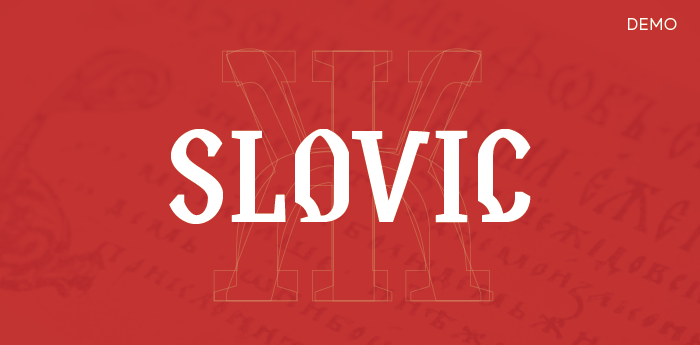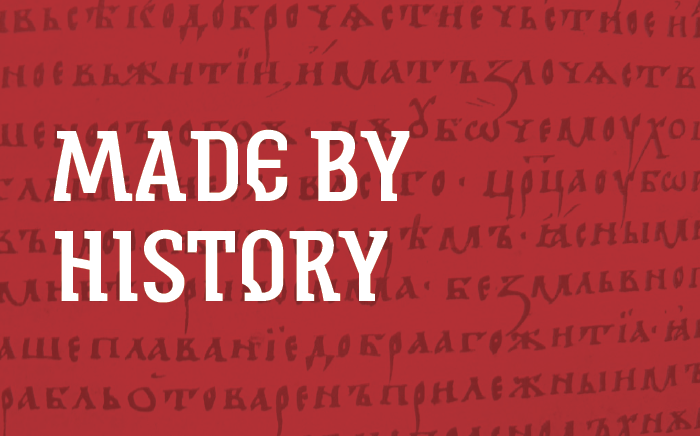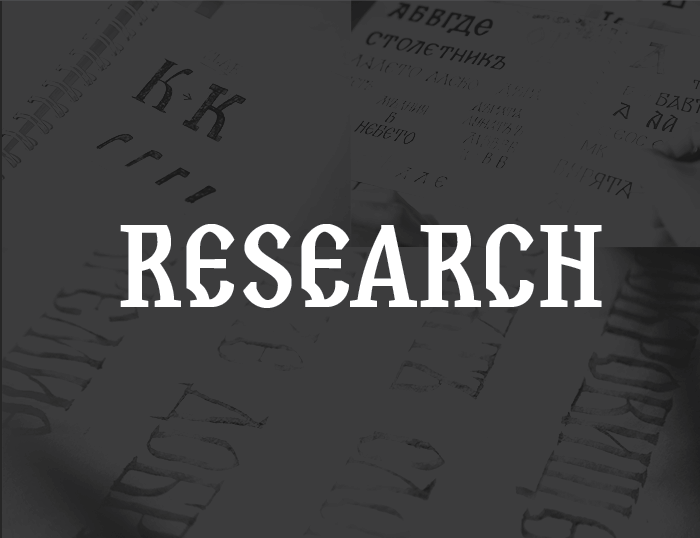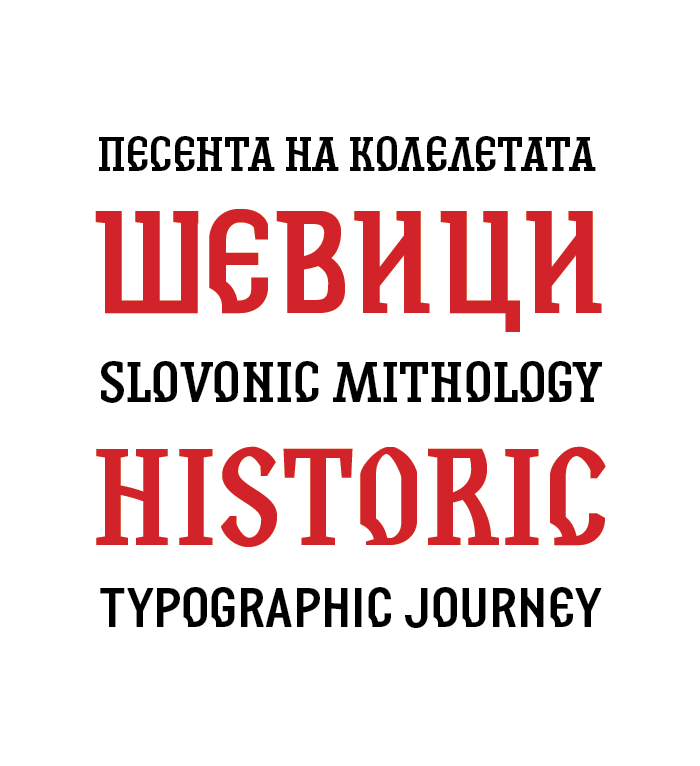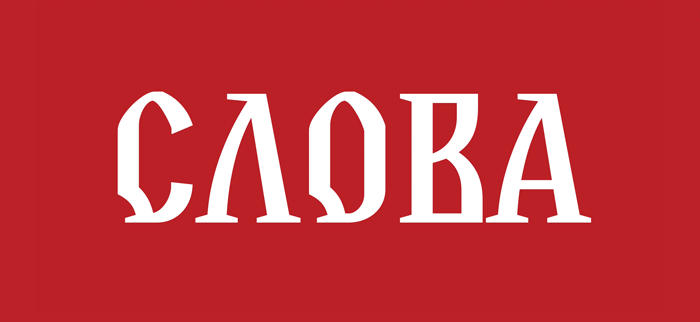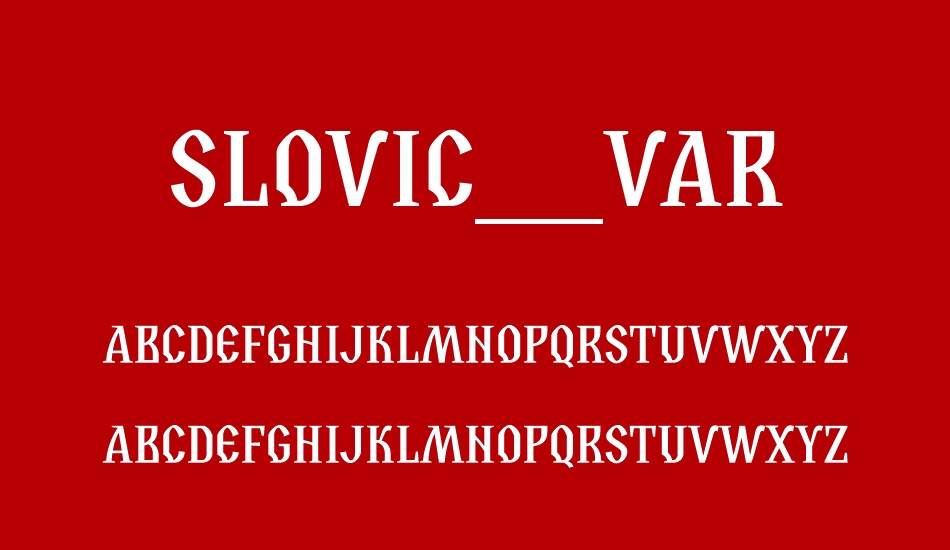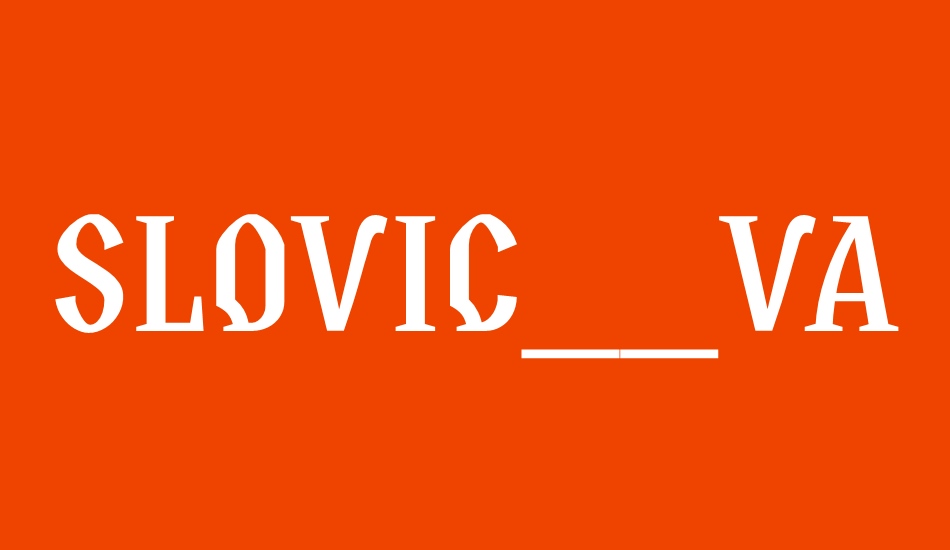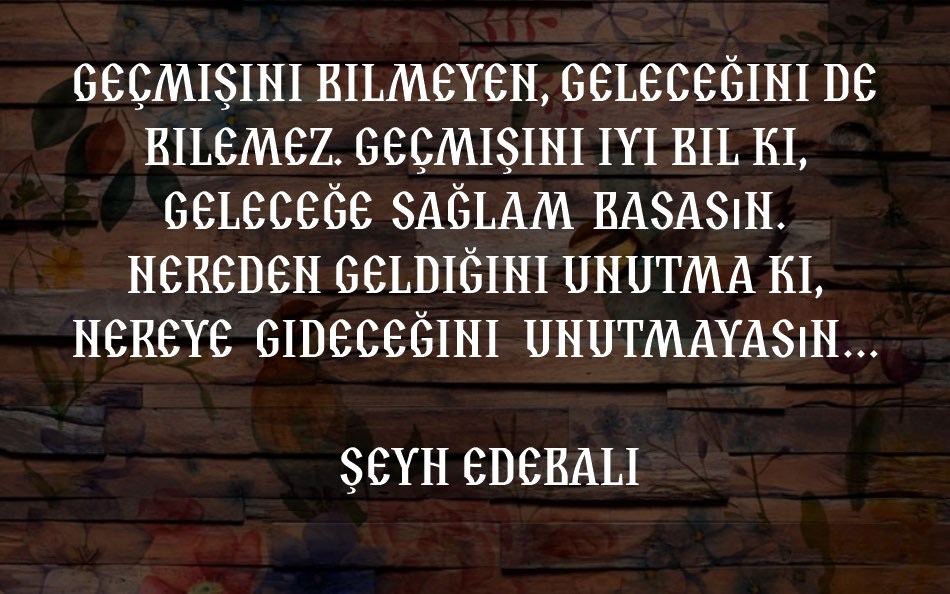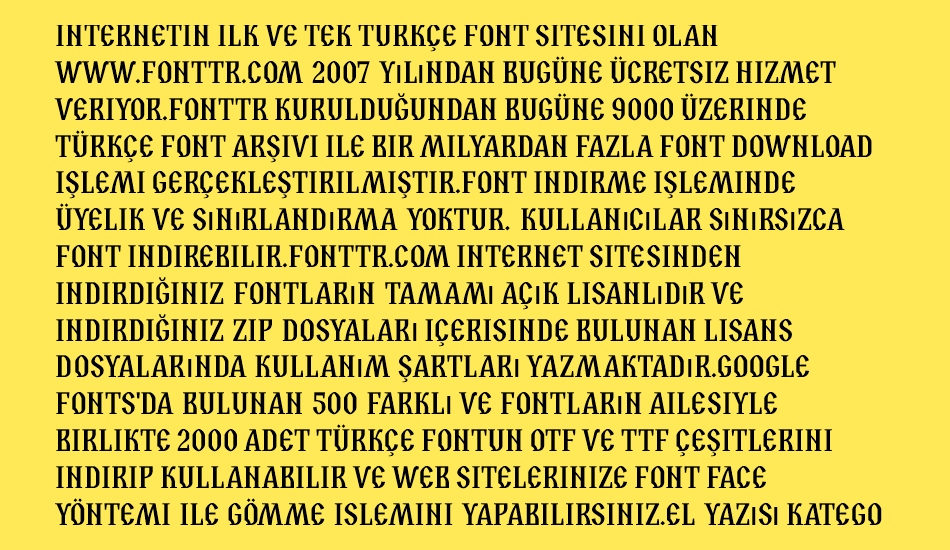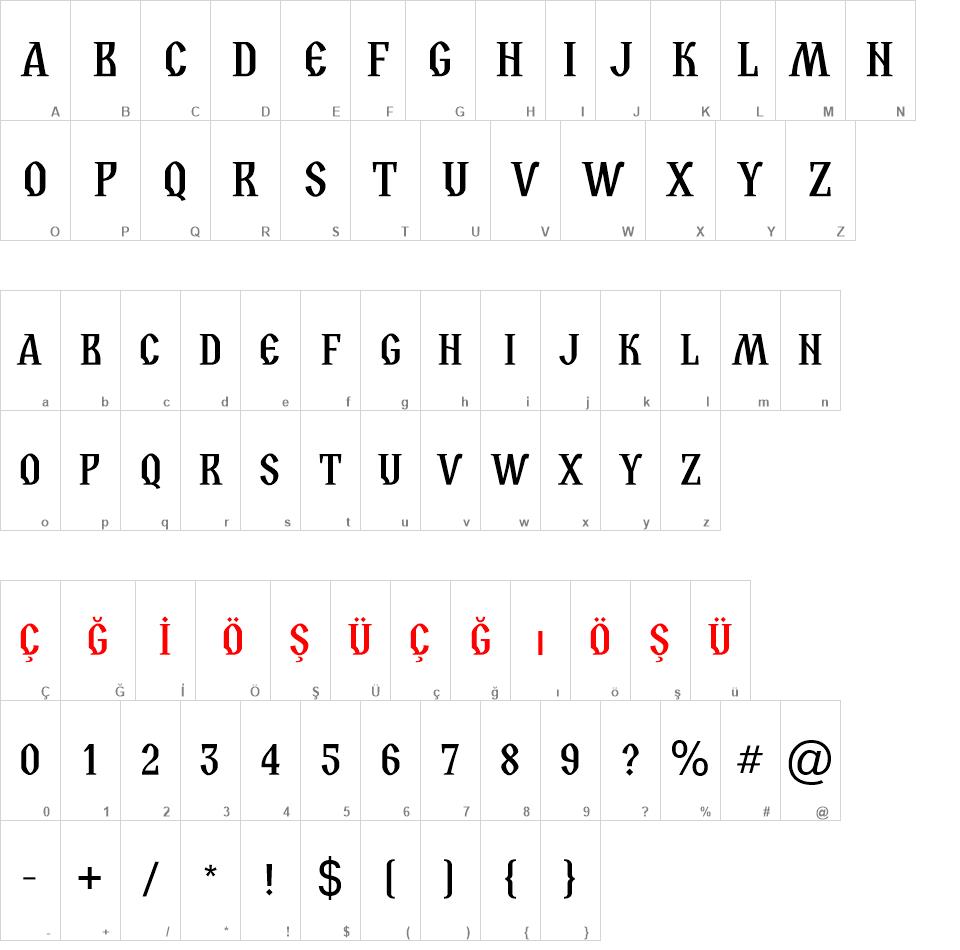
Slovic
The typeface Slovic (??????) Cyrillic presents a beginning of a journey into the Cyrillic typography.
Looking at the control slider of the variable font we can interpret the how it is morphing through the time. Slovic begins its course from a design that assembles characteristic elements of the Old Church Slavonic script and more precisely based on studied styles, such as Ustav (Cyrillic uncial) and Vyaz (Cyrillic ornate lettering). The second design combines some of these details and classical serif typeface solutions. Slovic continues its further stylistic progression, going through a classical slab serif, then semi-serif reaching to sans. Slovic aims to combine and interpolate various proportions and styles, supporting several stylistic sets and an extended Latin script thus giving the type family an extensive usability and applications.
This project is only a statement marking the beginning of diverse and deeper studies in the Cyrillic script.